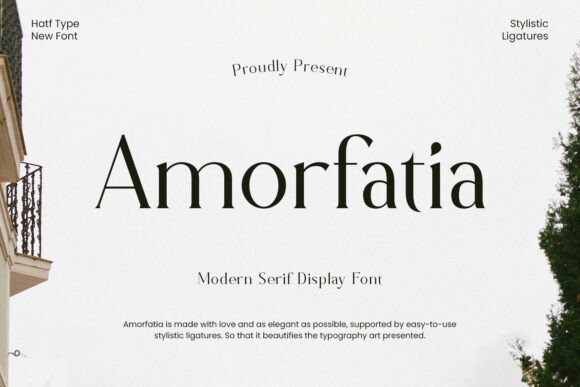
Discover the Elegance of Amorfatia Font: A Modern Serif for the Discerning Designer
I’ll never forget the design project that led me to Amorfatia Font. I was working on a luxury brand’s editorial piece, and I was struggling to find the perfect font that exuded sophistication and elegance. The client wanted a font that was both classic and modern, with a touch of avant-garde flair. After hours of searching, I stumbled upon Amorfatia Font, and it was love at first sight. ✨
Amorfatia Font is a striking serif display font that effortlessly fuses classical charm with modern sophistication. Crafted with meticulous attention to detail and balanced proportions, Amorfatia imparts an intellectual allure and luxurious feel in every delicately shaped letter.
An Honest Review of Amorfatia Font
- ✨ Elegant and sophisticated design that’s perfect for luxury brands
- ✅ Highly versatile and adaptable to various design applications
- 💡 Unique blend of firm yet tender nature, exuding authoritative elegance
- 🎨 Assortment of alternative characters and ligatures for high design versatility
While Amorfatia Font is an exceptional font, there are a few minor quirks to consider: 🤔
- ⚠️ Limited availability of condensed or extended styles
Amorfatia Font was inspired by the works of renowned typographers who sought to blend classical elegance with modern sophistication. The font’s creator aimed to craft a font that would exude intellectual allure and luxurious feel, while maintaining a unique and distinctive personality.
A: Amorfatia Font is primarily designed for display purposes, making it perfect for luxury brands, editorial design, and high-end publications.
Q: Is Amorfatia Font suitable for body text?
A: While Amorfatia Font is a beautiful font, it’s primarily designed for display purposes. For body text, you may want to consider a font with better legibility and readability.